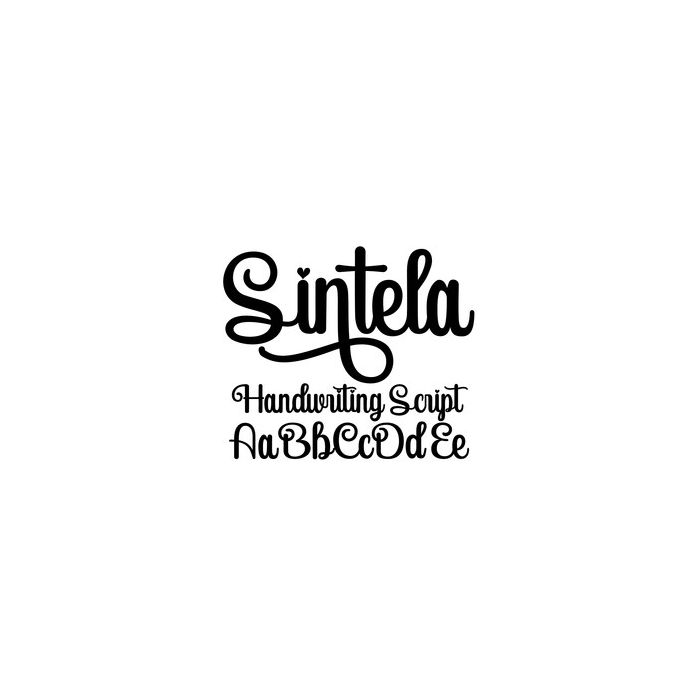
Sintela is a charming script style for inspiration for the latest calligraphy styles with an original and natural appearance, very casual for today's women's style. Perfect for projects, products, crafts, invitations and personalization. Includes alphabet, numbers, and punctuation.